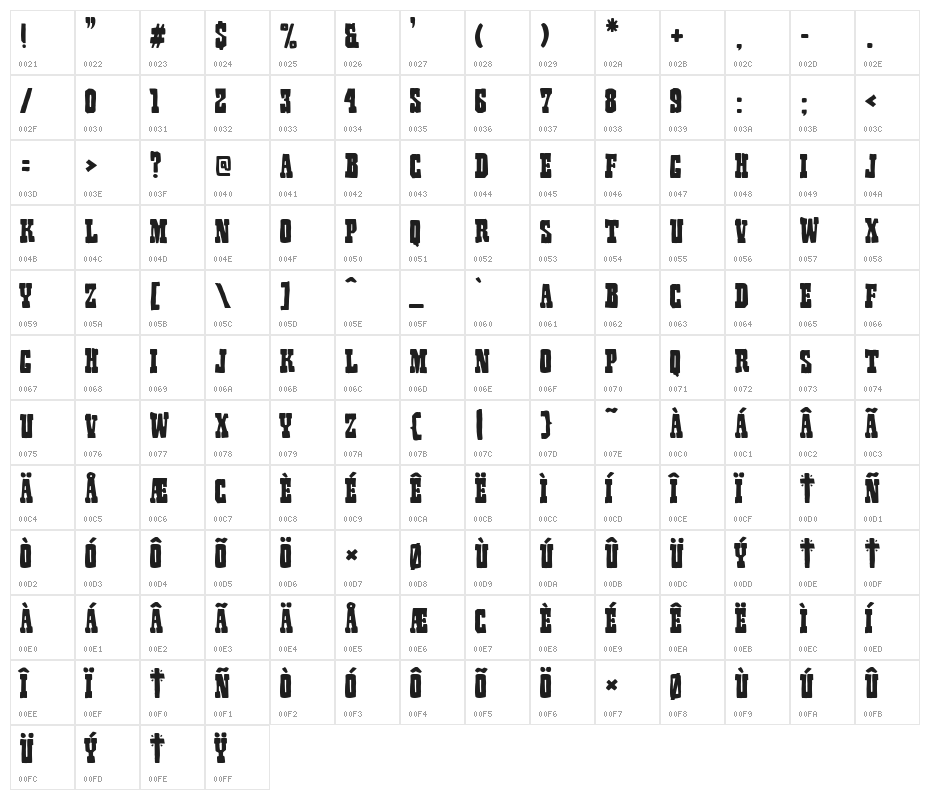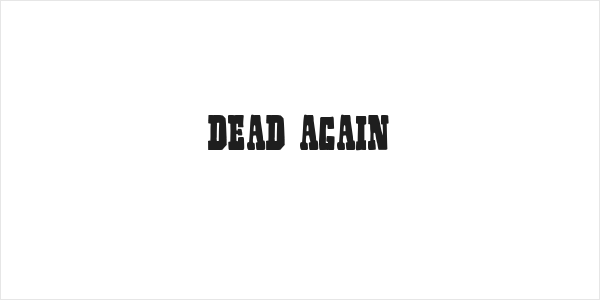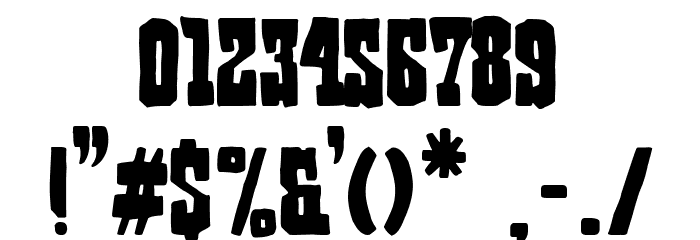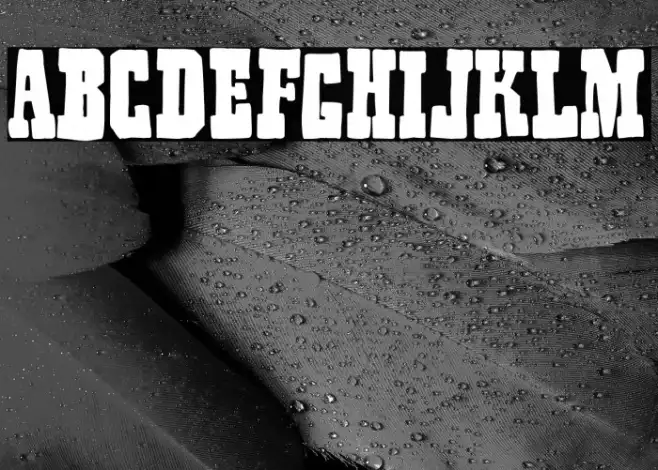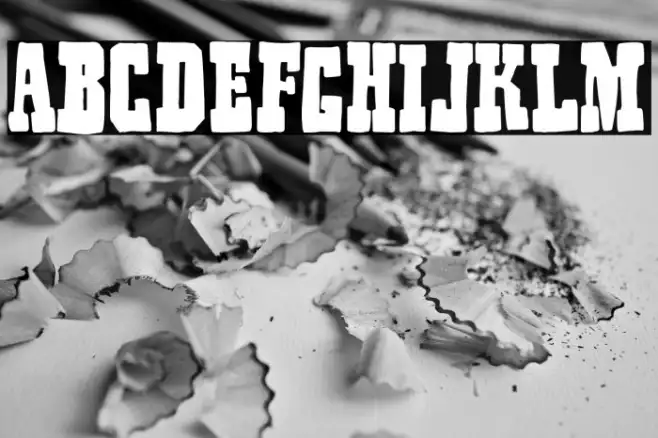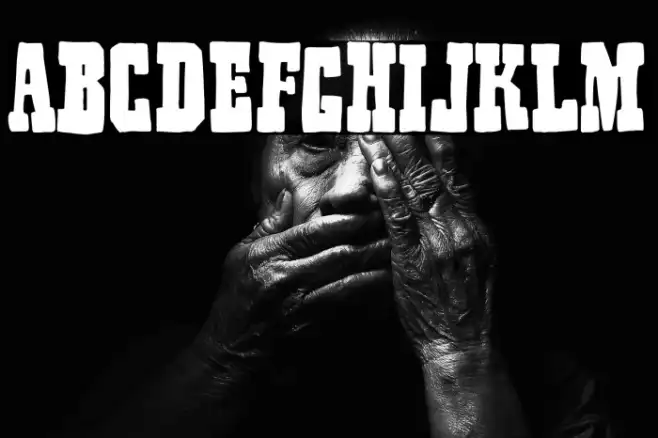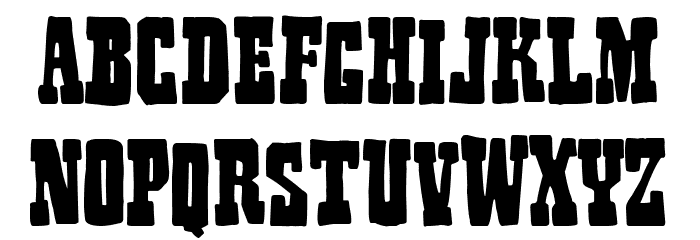
Dead Again Font
Dead Again Description
This bold and striking font features a rugged, distressed appearance that evokes a sense of strength and durability. The characters are heavily weighted with thick strokes and a slightly uneven texture, giving them a hand-crafted, vintage feel. The uppercase letters are particularly robust, with sharp, angular serifs that add to the font's boldness. The numbers and special characters maintain the same rugged style, ensuring consistency across all elements. This font's unique style makes it stand out, perfect for projects that require a strong visual impact.